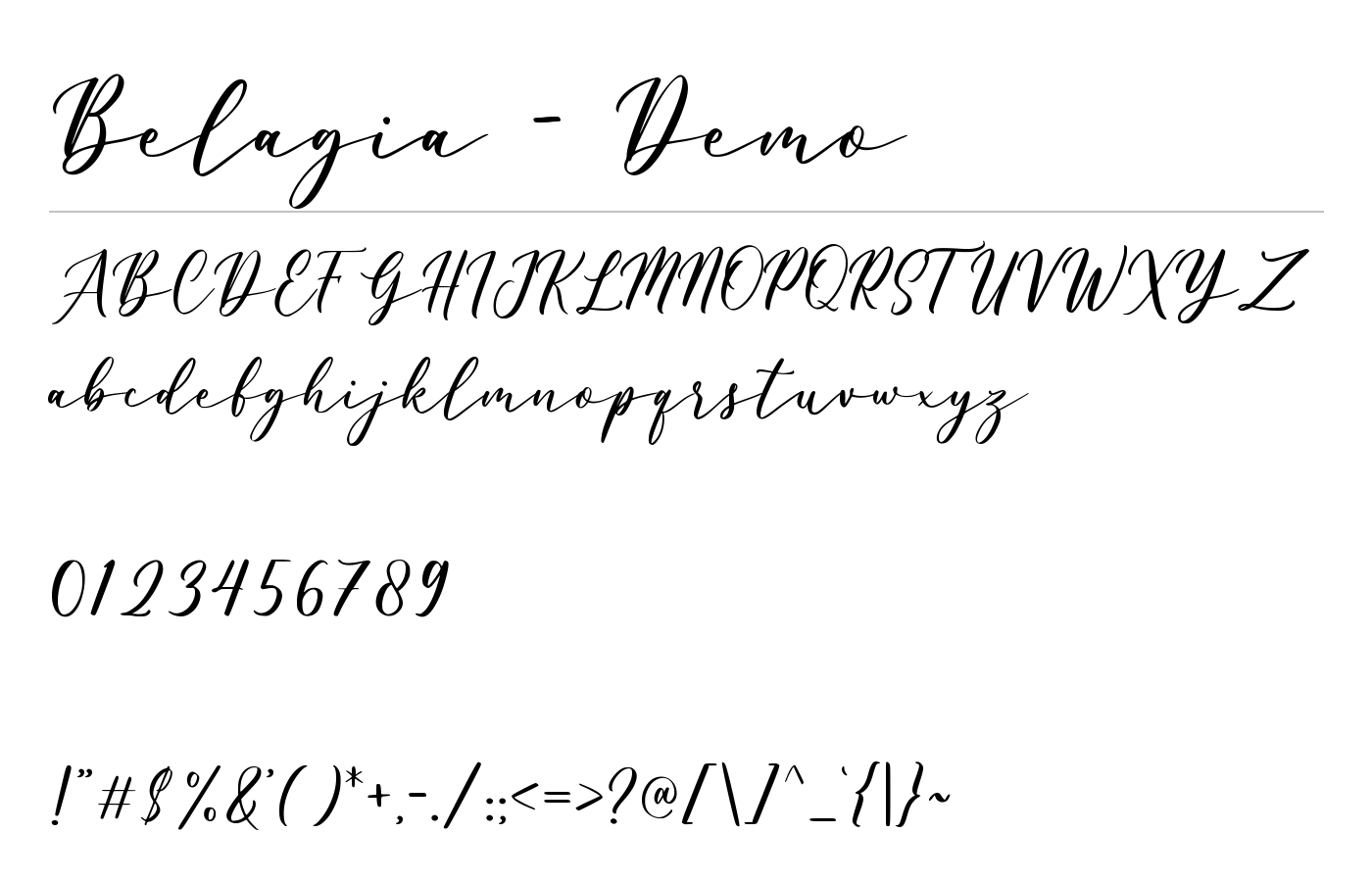
Belagia - Demo is an elegant, handwritten script font with delicate, flowing strokes that create a graceful and sophisticated look. Its moderate contrast and natural, calligraphic style make it perfect for invitations, branding, and editorial designs that seek a refined, personal touch. This font works beautifully in contexts where a warm, stylish, and approachable feel is desired.
Belagia - Demo Font
About Belagia - Demo Font